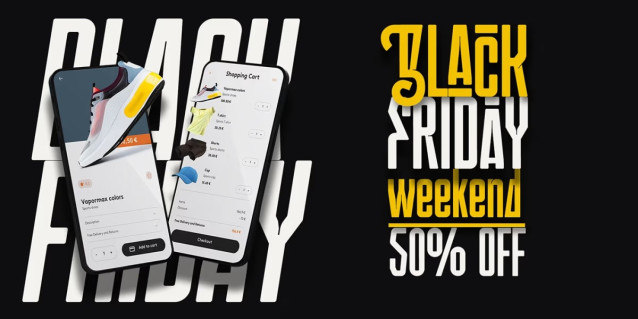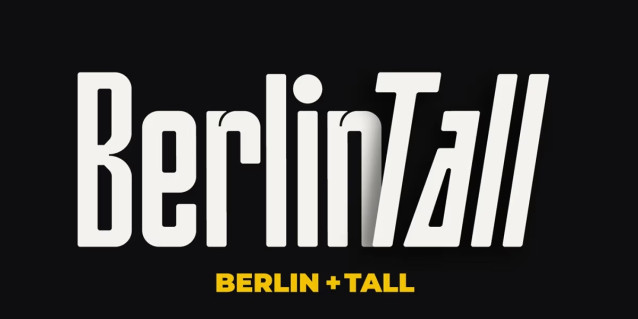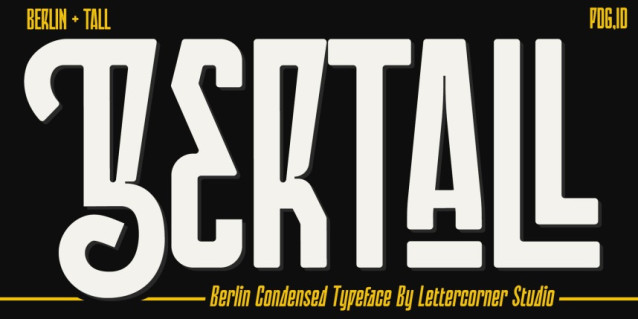
Bertall Font
Bertall Font is a clean, modern display typeface by Lettercorner Studio, featuring thin, elegant lines and a minimalist aesthetic. Its refined shapes and lightweight structure make it ideal for logos, titles, invitations, and contemporary editorial layouts. Simple yet stylish, Bertall adds a sleek, sophisticated touch to any design project.